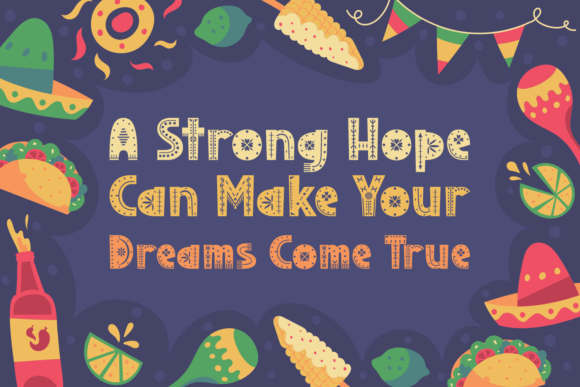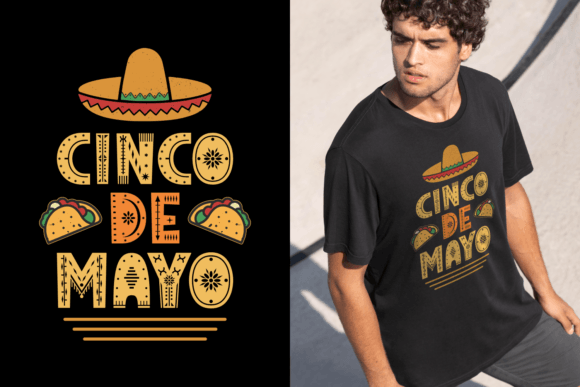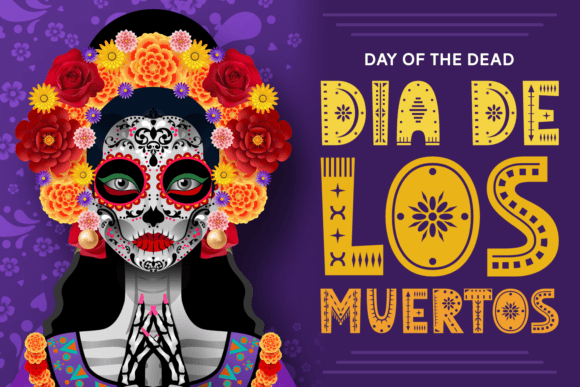
Introduction to Mexico Culture Font
Have you ever been working on a design project, and you just can’t seem to capture the essence of a vibrant culture? Maybe you’re trying to convey the excitement of a Cinco De Mayo celebration, or the warmth of a Mexican Fiesta. If so, you’re in luck because we’ve got just the thing for you – the Mexico Culture Font.
This stunning typeface is a tribute to the lively spirit of Mexico, and it’s sure to add a splash of festive flair to your creative projects. With its high-quality design and transparent background, it’s the perfect resource for designers looking to infuse their work with a touch of Mexican culture. And the best part? It’s available for free download, making it a valuable addition to any design library.
Whether you’re working on a marketing campaign, a social media graphic, or a logo design, the Mexico Culture Font is sure to bring a smile to your client’s face. Its unique blend of traditional and modern elements makes it the perfect choice for designers looking to add a little something extra to their projects.
Key Features of Mexico Culture Font
- High-quality design resource for creative projects, perfect for those looking for a free download.
- Unique and authentic representation of Mexico’s rich culture, ideal for use in various design contexts.
- Transparent background, allowing for easy integration into various design elements and backgrounds.
- High-resolution design, suitable for use in large-scale projects, such as billboards, posters, and signage.
- Designed to evoke the vibrant spirit of Mexico’s culture, making it an excellent choice for designers working on projects related to this theme.
Honest Review: Mexico Culture Font
I recently had the chance to work with the Mexico Culture Font, and I must say it’s been a game-changer for my design projects. This font is perfect for anyone looking to add a touch of Mexican flair to their work. ✨
The Mexico Culture Font is available for free download, which is a huge plus in my book. The quality is top-notch, with crisp, clear lettering that’s perfect for printing or digital use. I also appreciate the transparent background, which makes it easy to layer and combine with other design elements.
Here are some of the features that I love about this font:
- Unique and authentic design inspired by Mexican culture
- High-quality lettering that’s perfect for printing or digital use
- Transparent background for easy layering and combining
- Free download makes it accessible to designers of all levels
That being said, there are a few limitations to keep in mind:
- The font may not be suitable for all types of projects (e.g. it’s not ideal for simple, clean designs)
- The font’s bold weights may be a bit too heavy-handed for some designs
Overall, I’m really impressed with the Mexico Culture Font. It’s a valuable resource for designers looking to add some creativity and flair to their work. ⚠️
To get the most out of the Mexico Culture Font, use it with a transparent background to create a visually appealing design. This font is ideal for creative projects, such as posters, flyers, and brochures.
The Mexico Culture Font is commonly used for cultural and festive designs, including Cinco de Mayo and Day of the Dead celebrations. Its high-quality design makes it a great resource for any creative project.